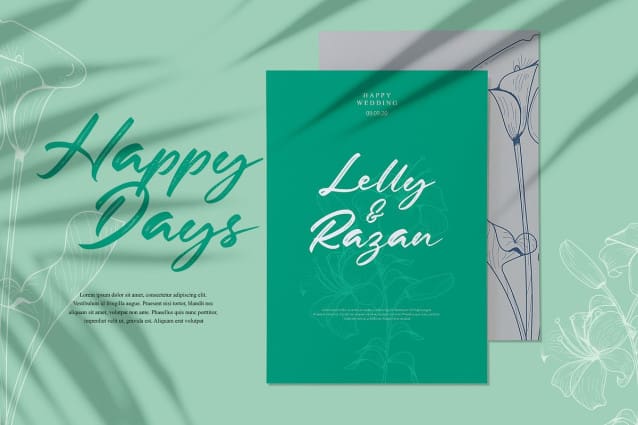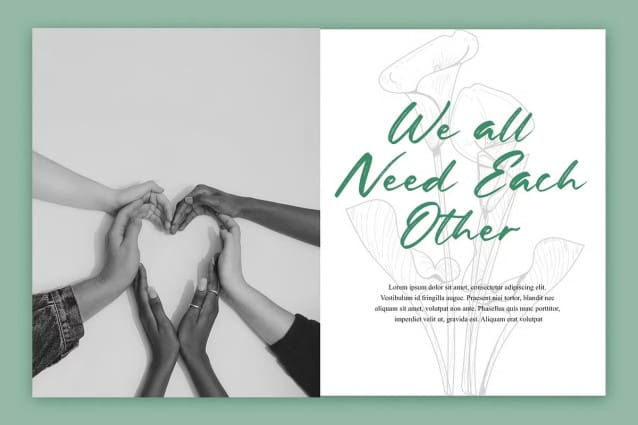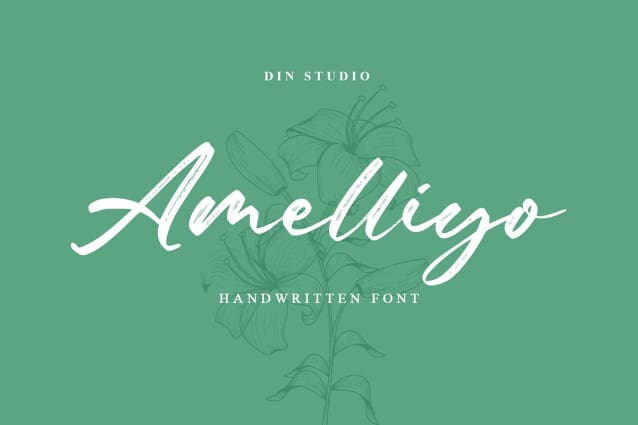
Amelliyo Brush Font
Amelliyo Brush Font is a classy handwritten font. Made for any professional project branding. It is the best for any design projects, such as posters, banners, logos, book covers, album covers, quotes, invitations, greeting cards, name cards, headings, printed products, merchandise, social media, etc. Every letter has a unique and beautiful touch. Find out more ways to use this font by taking a look at the font preview.